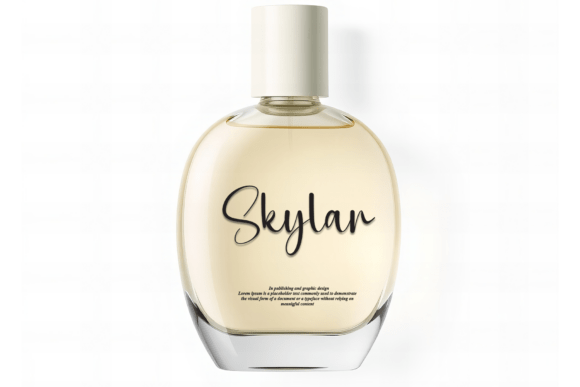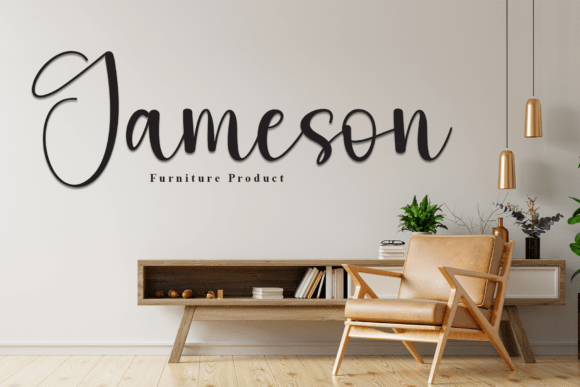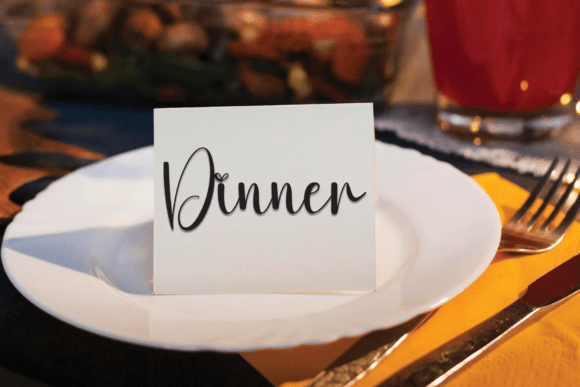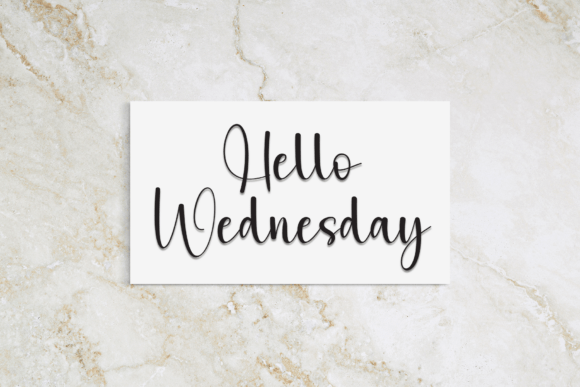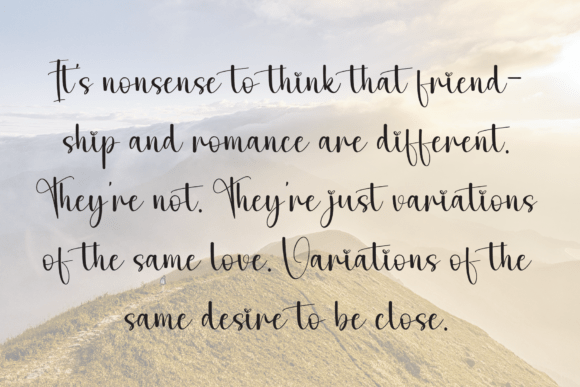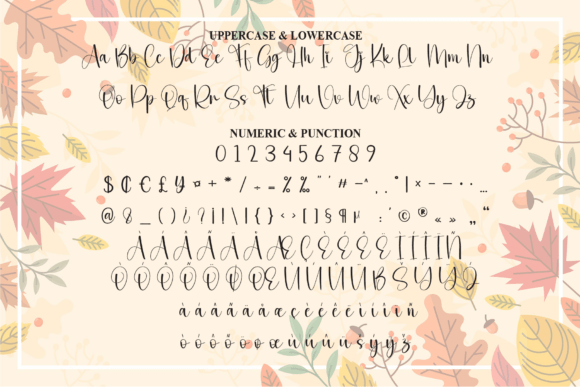
Cozy Up to the Perfect Script: Autumn Font
As the leaves begin to change, and the air fills with the sweet scent of fallen foliage, many creatives find themselves drawn to the cozy, rustic charm of the season. For designers, this moment of seasonal transition is the perfect opportunity to revisit their branding and materials, seeking the perfect font to evoke the warmth and character of autumn.
Enter Autumn Font, a new handwritten modern script designed to capture the essence of the season. With its expressive downstrokes and delicate swashes, Autumn Font is the perfect choice for designers looking to add a touch of soulful storytelling to their work. Whether you’re creating artisanal botanical branding, independent farmhouse logos, or seasonal event stationery, Autumn Font is the premier choice for adding a personal, handmade touch to your designs.
What sets Autumn Font apart is its unique blend of organic texture and grounded baseline, making it the perfect addition to any designer’s toolkit.
Autumn Font Key Features
- Unique Characteristics: The font features a unique blend of traditional and modern elements, with intricate details and subtle texture, evoking a sense of autumnal warmth and coziness.
Autumn Font Review
When I first laid eyes on the Autumn Font, I was immediately drawn to its earthy charm āØ. The combination of warm, golden hues and gentle curves gives off a cozy, inviting vibe that’s perfect for seasonal designs or projects that evoke a sense of nature. The font’s flexibility in terms of font sizes and line heights also makes it a great choice for various design applications.
One of the standout features of the Autumn Font is its legibility āØ. The letters are clear and well-defined, making it easy to read even at smaller font sizes. Additionally, the font’s unique character set adds a touch of personality to any design, from rustic wedding invitations to outdoor event branding.
- ā ļø The font’s weight range is somewhat limited, with only a few weights available, which may not be suitable for all design needs.
- ā ļø Some users may find the font’s curves a bit too ornate, which could detract from its overall legibility at very small font sizes.
Overall, the Autumn Font is a solid choice for designers looking to add a touch of warmth and coziness to their projects āØ. While it may not be the most versatile font on the market, its unique character and legibility make it a great option for seasonal or nature-inspired designs.
Tips for Getting the Most Out of Autumn Font
Use the Autumn Font to create a warm and cozy atmosphere in your designs. Pair it with earthy colors and natural textures to enhance its autumnal feel.
The Autumn Font is perfect for:
- Seasonal marketing campaigns.
- Autumn-themed invitations and party decorations.
- Outdoor and nature-inspired designs.
Alternative Fonts to Autumn Font for Designers
Playfair Display is a luxurious and elegant serif font that is perfect for creating a sophisticated and high-end look. It features intricate details and connections between letters, making it ideal for use in titles, headings, and other prominent text elements. When to use: For luxury branding, high-end fashion, and sophisticated editorial designs.
Comparison to Autumn Font: While Autumn Font is also a serif font, Playfair Display has a more luxurious and elegant feel, making it a better choice for high-end designs. Autumn Font is more versatile and can be used for a wide range of designs, while Playfair Display is better suited for specific, high-end applications.
Great Vibes is a modern and elegant script font that is perfect for creating a warm and inviting atmosphere. It features flowing connections between letters and a relaxed, handwritten feel. When to use: For wedding invitations, greeting cards, and other designs that require a warm and personal touch.